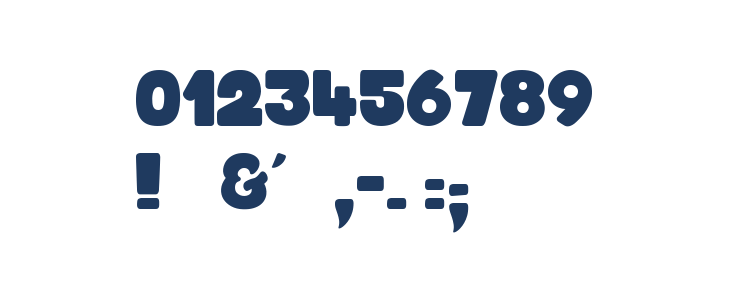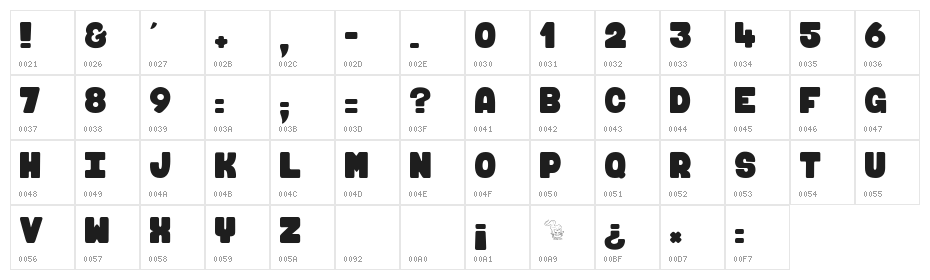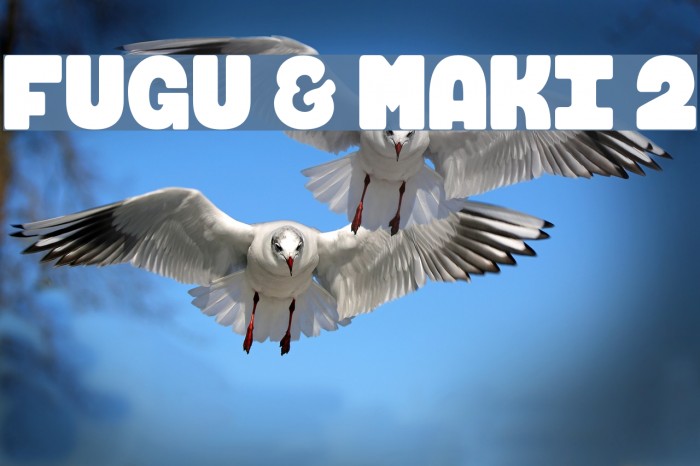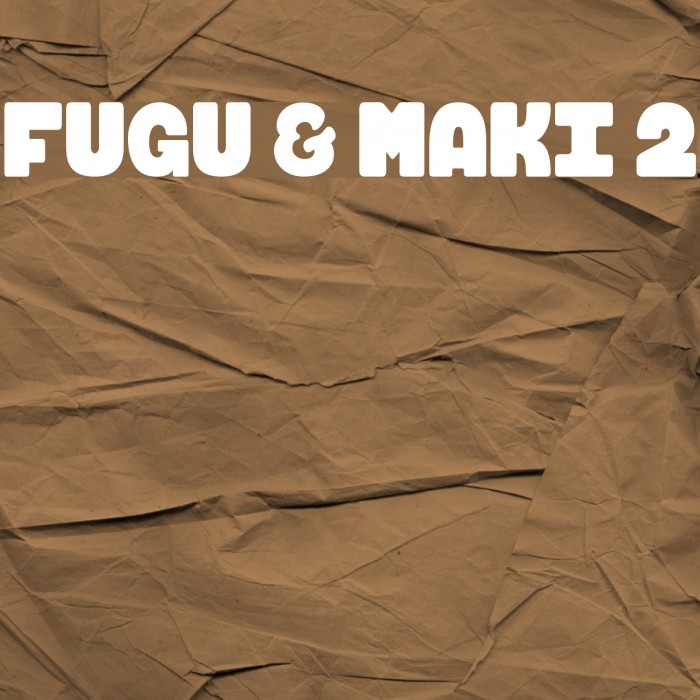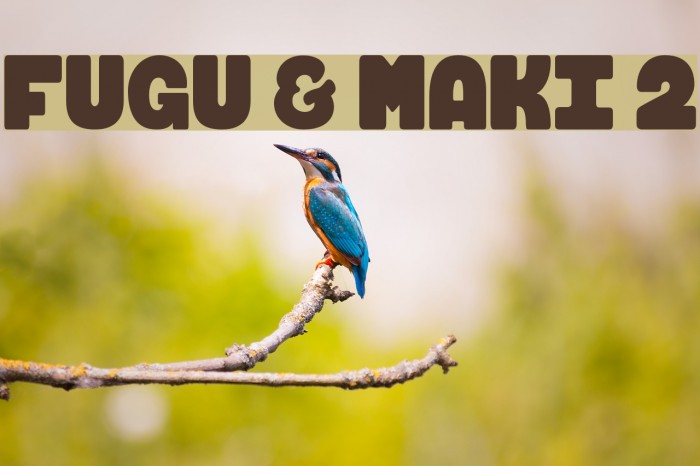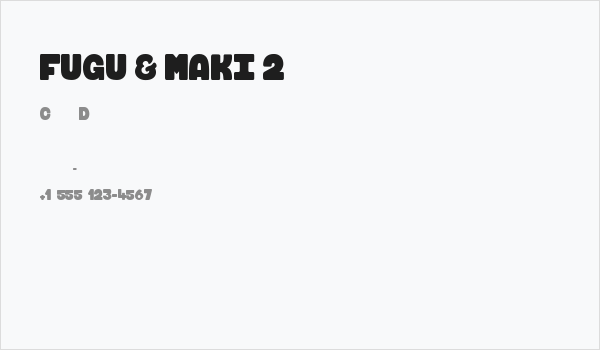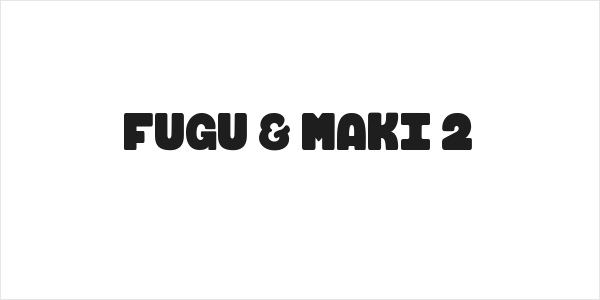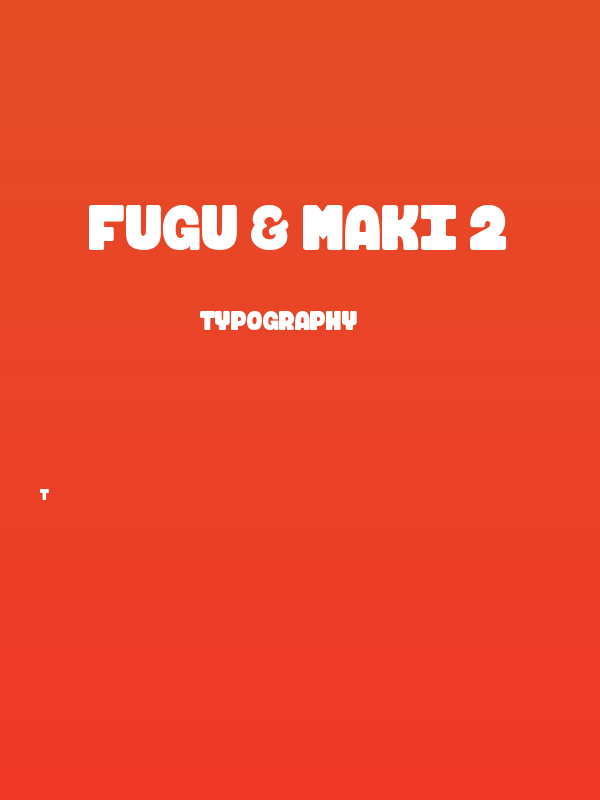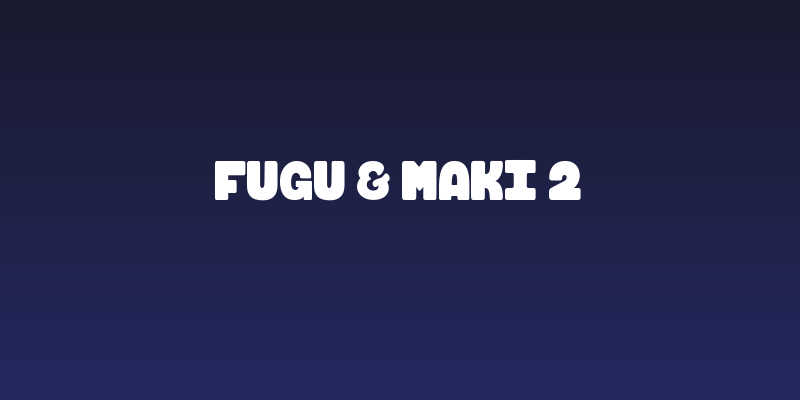
FUGU & MAKI 2 Font
FUGU & MAKI 2 Description
This font features bold, rounded characters with a playful and chunky appearance. The letters are uniformly thick, giving it a strong presence and making it highly legible from a distance. Its rounded edges and uniform stroke width contribute to a friendly and approachable feel. The numbers and special characters maintain the same bold and rounded style, ensuring consistency across all elements. This font is ideal for designs that require a fun and engaging look, such as children's books, playful branding, or eye-catching headlines.
| Overall Style | Playful, Modern |
| Proposed Projects | Ideal for children's books, playful branding, posters, and eye-catching headlines. |